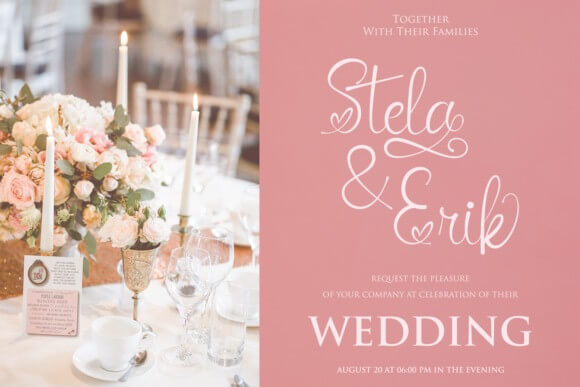
About Catrina Font
Catrina Font is a lovely calligraphy and script font. Beautiful curves and textures may be found in this font. The typeface has a girly vibe to it, therefore it’s ideal for any kind of girly project. This is a great typeface for logo designers because they may use it in a variety of ways. The typeface looks fantastic in a curving, thin shape, but it may also be used in a thicker shape. The font is designed and shared by naharstd.
The font is suitable for almost everything such as Logos, branding projects, homeware designs, product packaging, mugs, quotes, posters, shopping bags, t-shirts, book covers, name cards, invitation cards, greeting cards, labels, photography, watermark, special events, etc. All your other lovely projects that require beautiful handwriting taste will benefit from this font.
StyleScript, Calligraphy